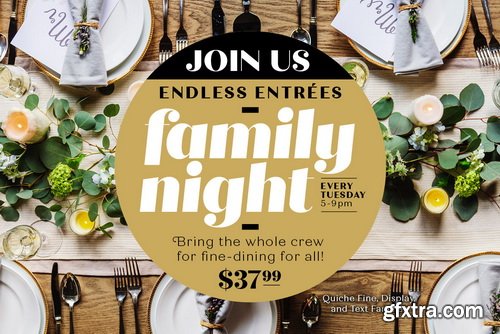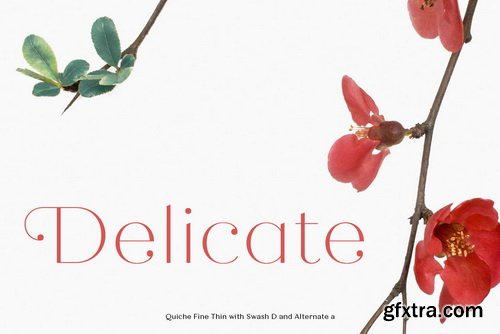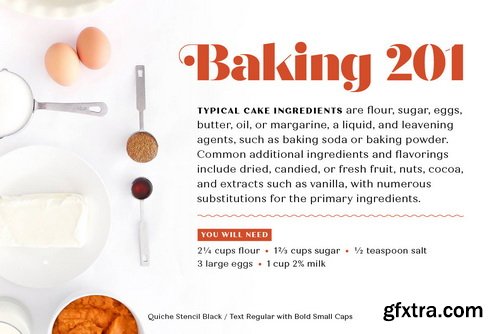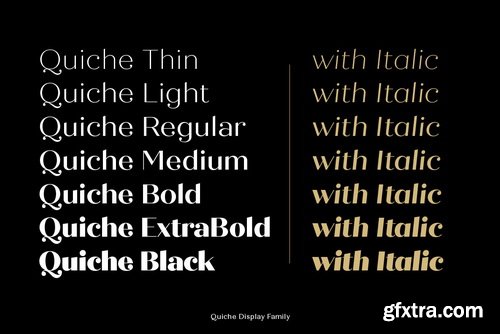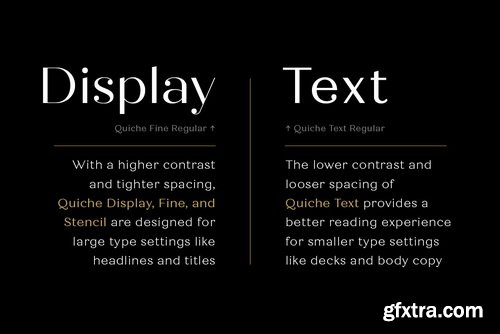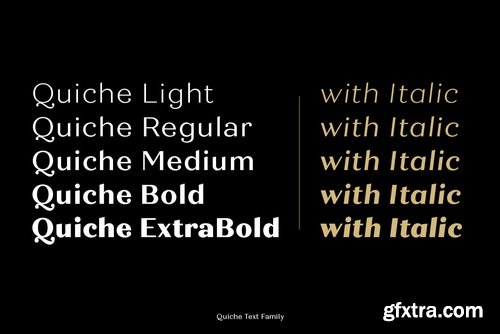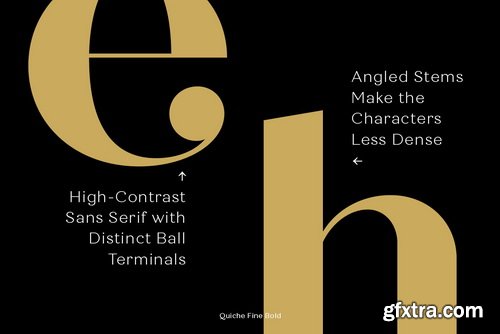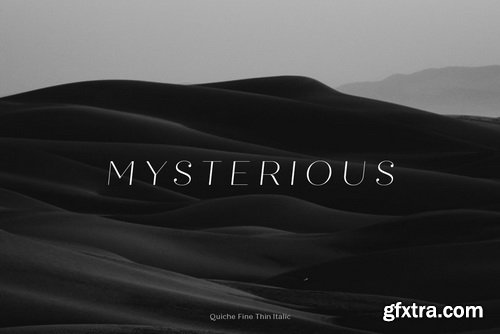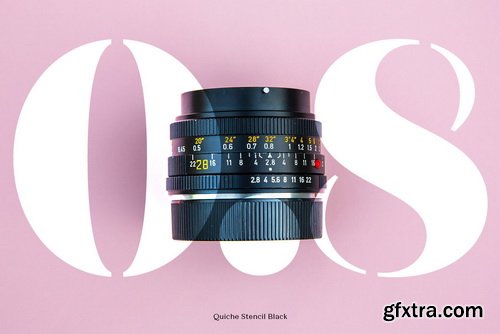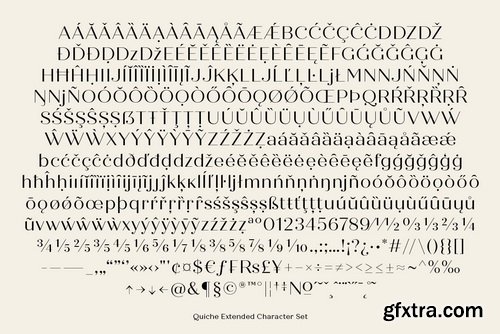
Quiche is a high-contrast, sans serif typeface featuring ball terminals and angled stems. This 52 font superfamily is a complete branding suite. The 4 subfamilies—Display, Fine, Stencil, and Text—were created to work harmoniously together based on the need. With weights ranging from thin to black and matching italics, there are a variety of applications that the fonts can be used for: print, web, branding, advertising, magazines, products, packaging, labels, etc.